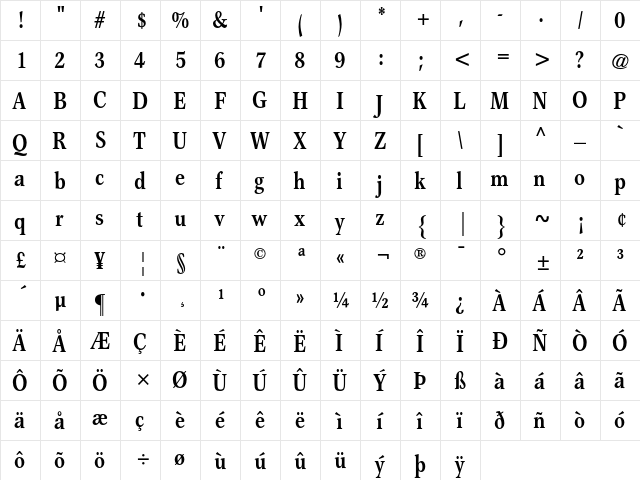
Garth Graphic AT Cond Bold Font Preview
Design Context for Garth Graphic AT Cond Typeface
Garth Graphic AT Cond takes a measured approach to typography — its balanced proportions and neutral character make it a reliable workhorse for both digital and print work. Its bold stroke weight gives it real presence on the page. The condensed width makes it efficient for tight spaces without sacrificing legibility.